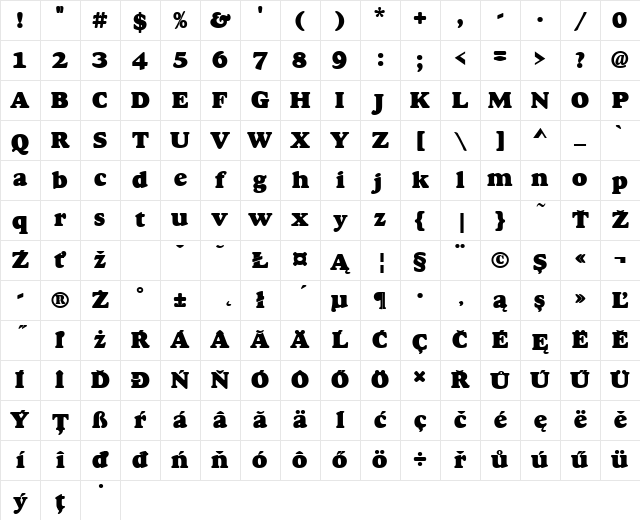
GoudyHeaPEE Regular Free Font
GoudyHeaPEE Regular
Design Context for GoudyHeaPEE
GoudyHeaPEE is a composed and adaptable typeface that performs quietly and consistently across a wide range of design contexts.
Pro Tip: Use GoudyHeaPEE in both headline and body roles to test its range before committing to a single application.